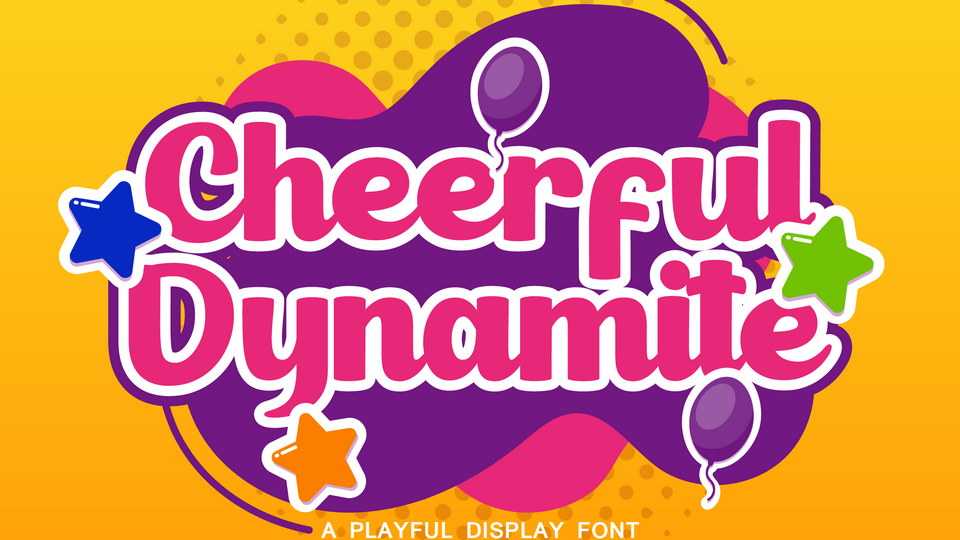
Download Cheerful Dynamite font, a playful display typeface, carefully handcrafted to become a true favorite. Its casual charm makes Cheerful Dynamite appear wonderfully warm and friendly.